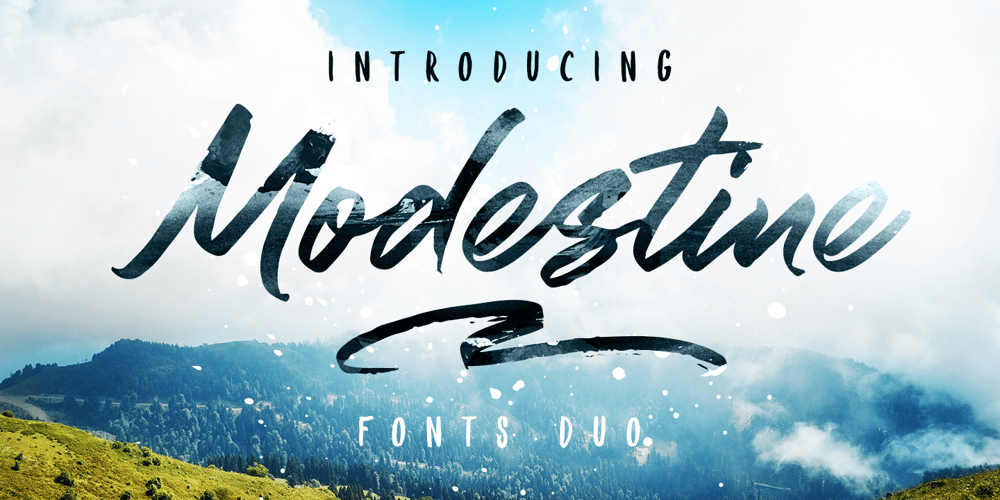
Modestine
Modestine font
Modestine Font Family was designed by Anton Didenko and published by Kavoon. Modestine contains 2 styles and family package options. Modestine comes with a full set of upper and lower case characters – giving you the extra freedom to turn your text into authentic custom-made hand lettering.Modestine font Includes a large range of glyphs including numerals, punctuation & multilingual support. Punctuation & numbers Splashes & Splatters Uppercase letters Multi Language